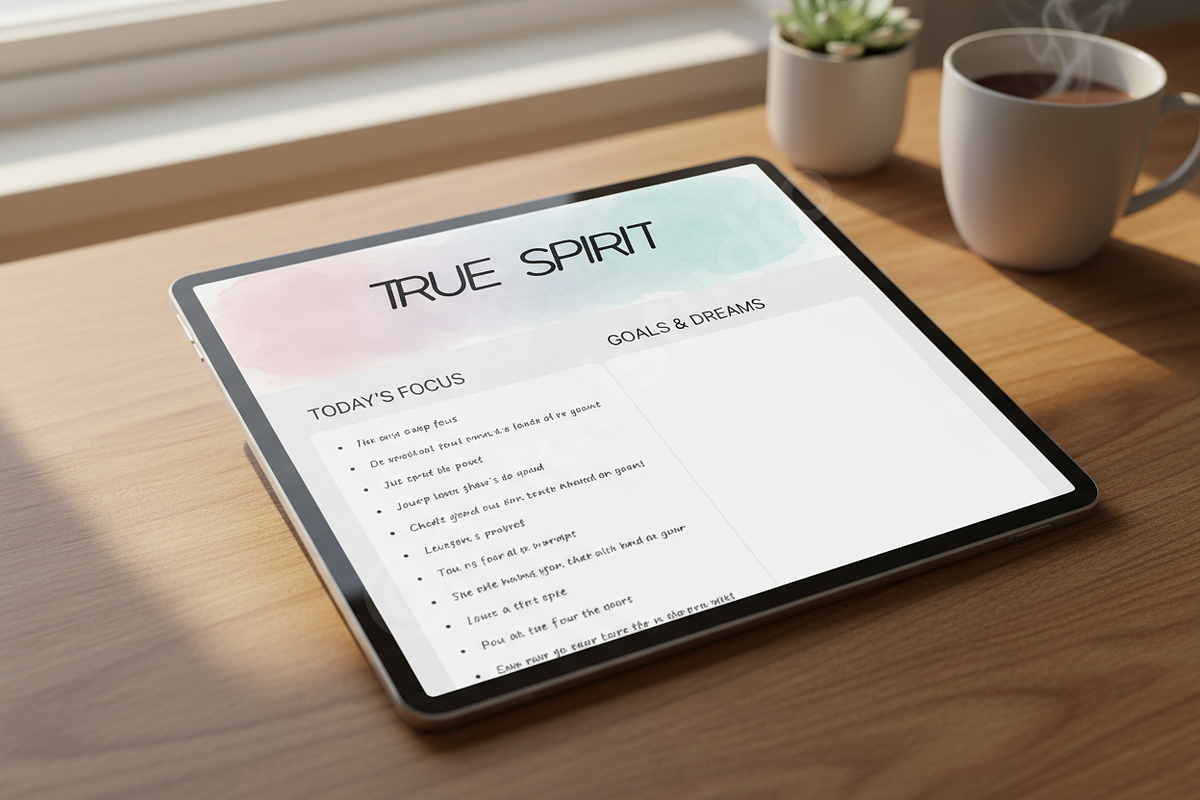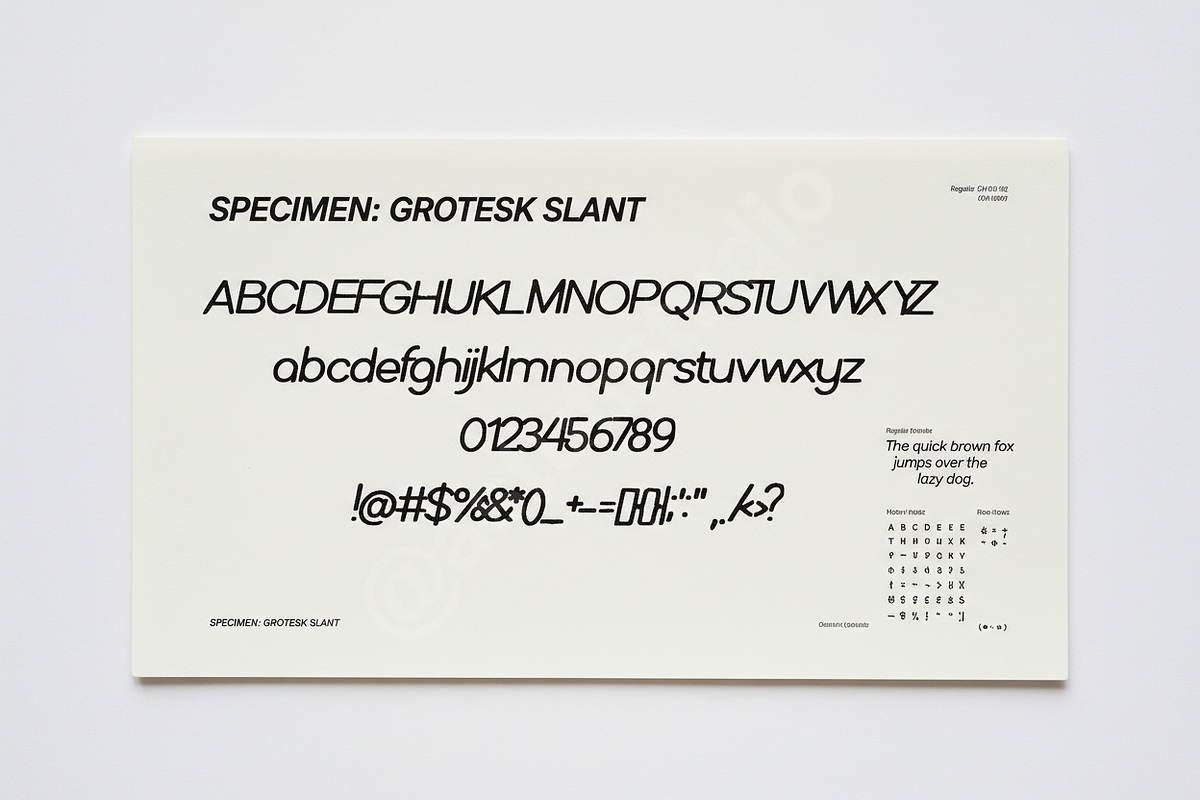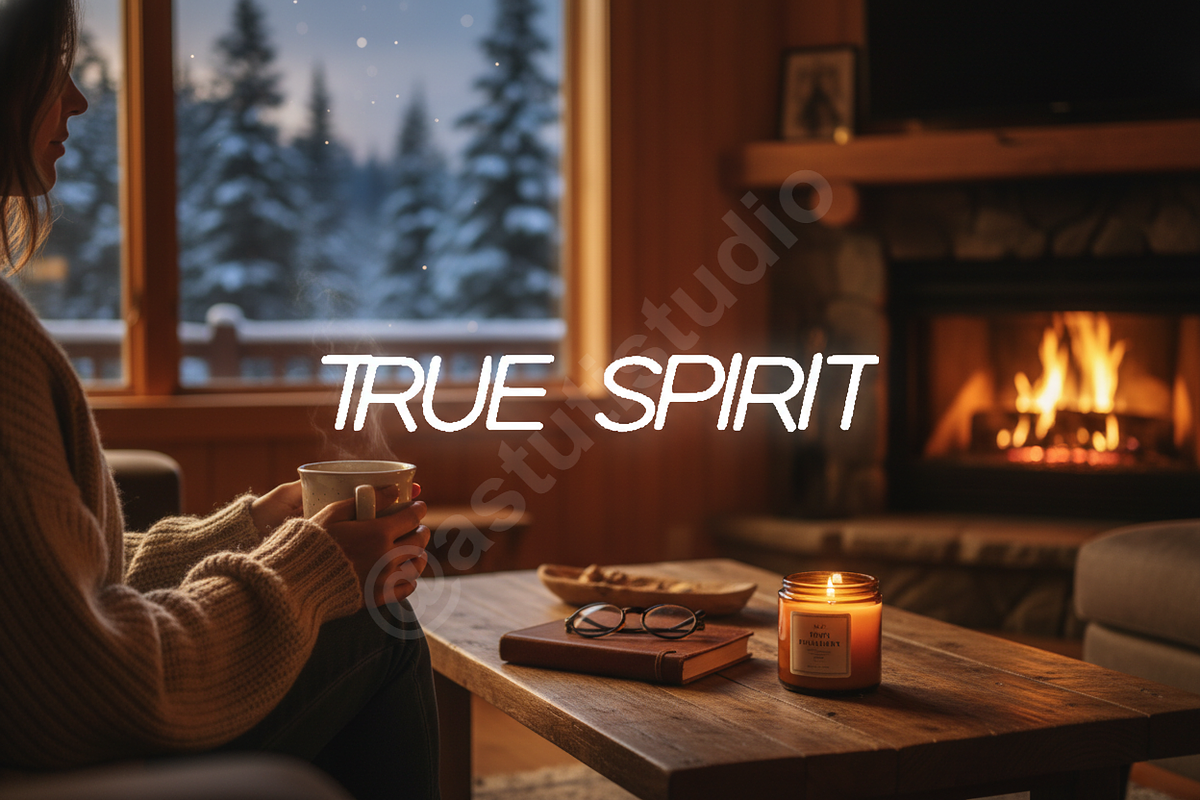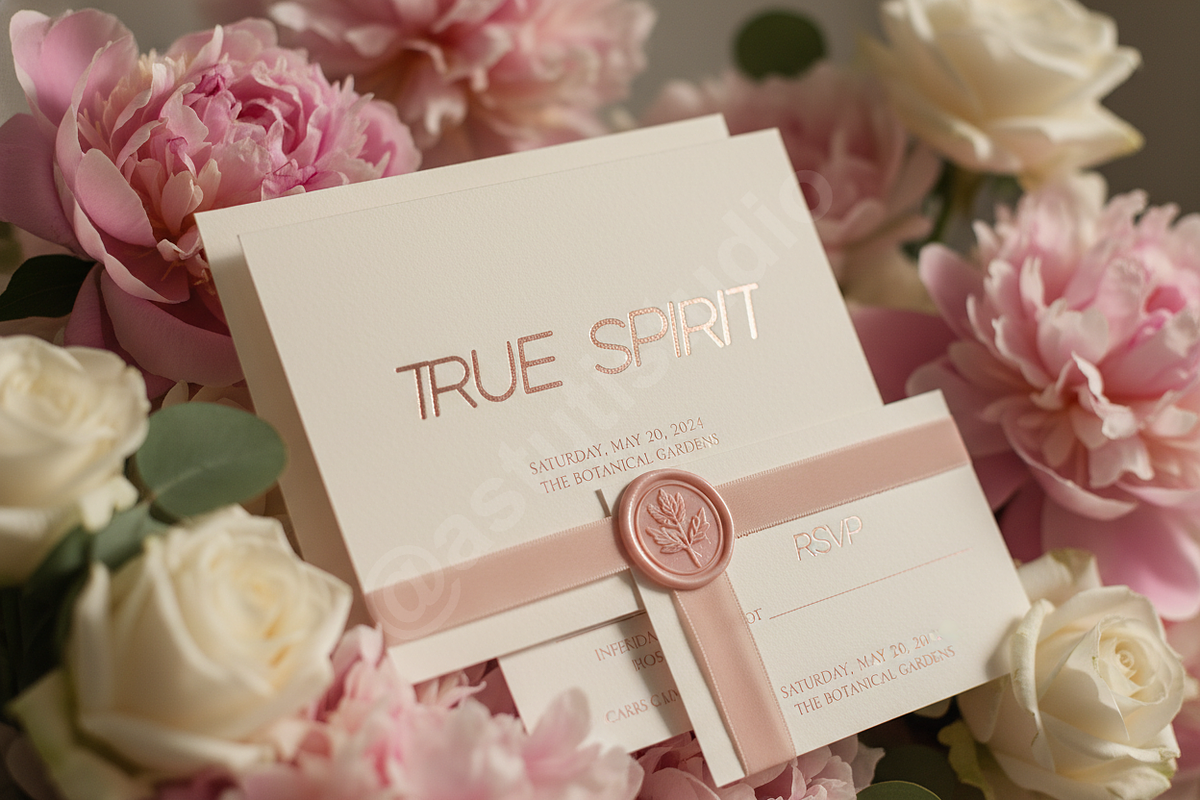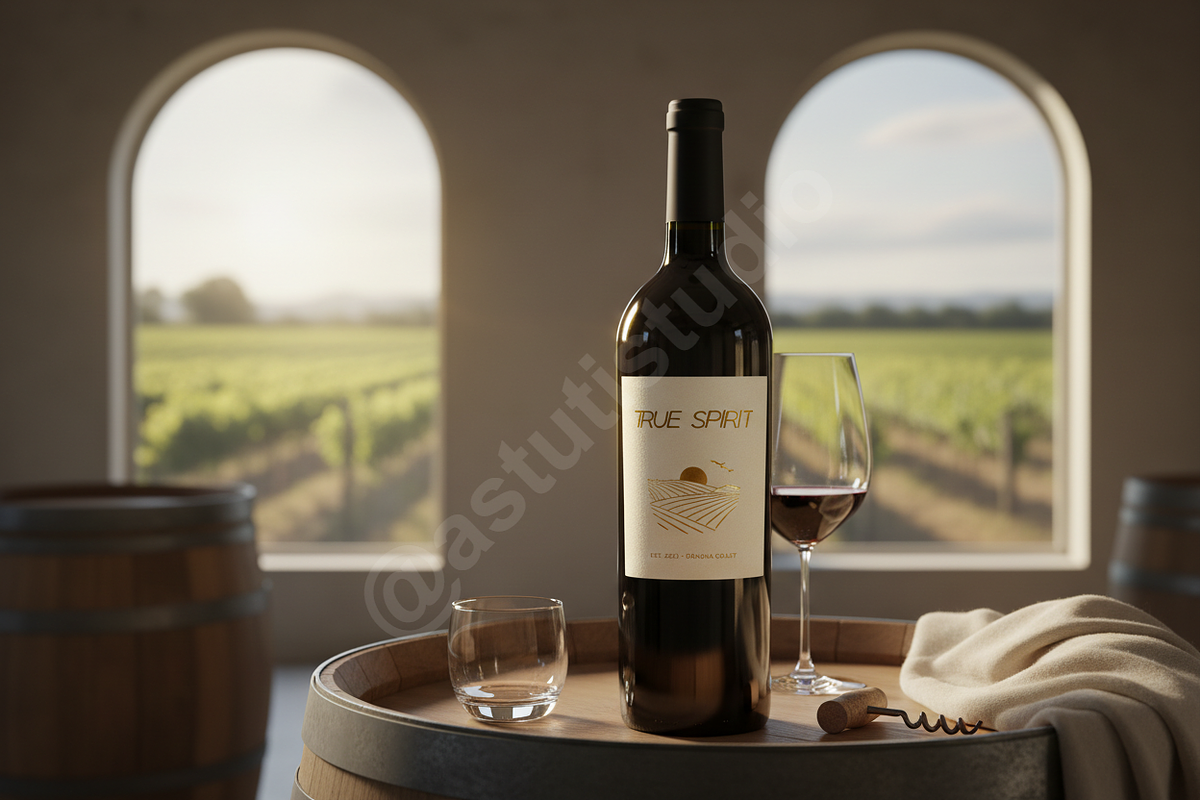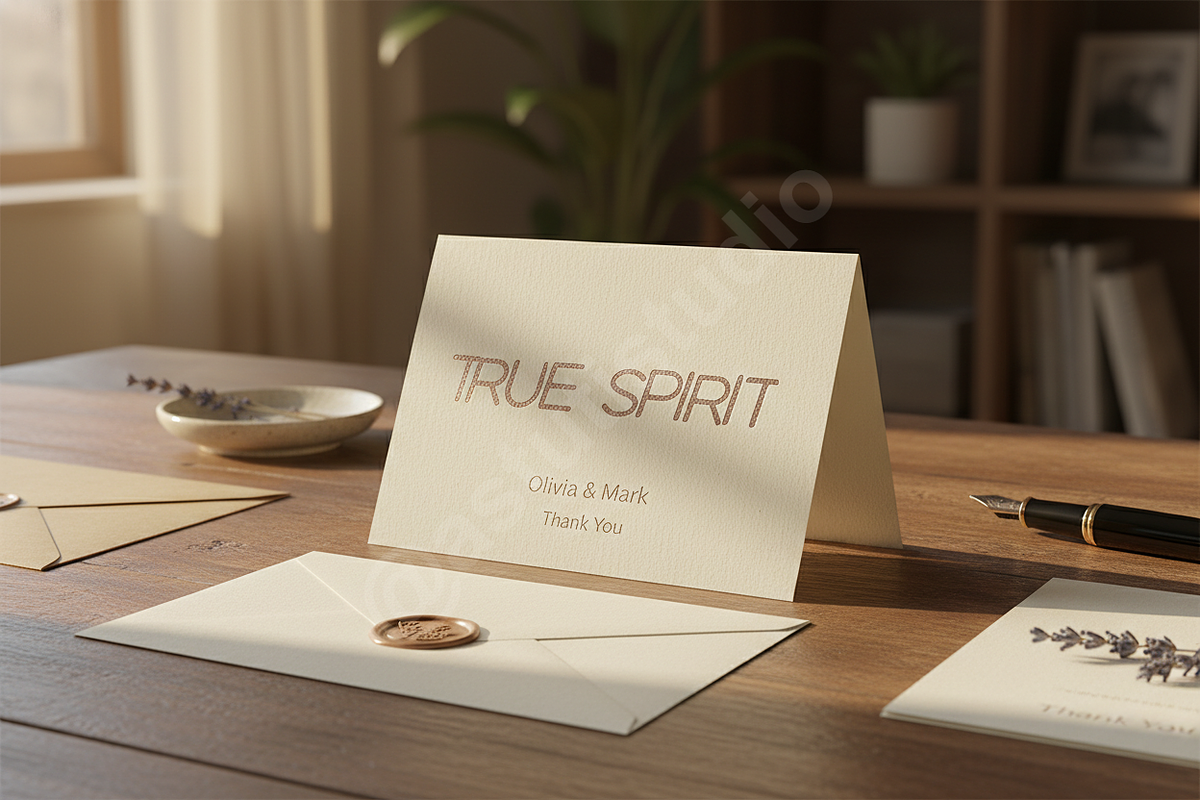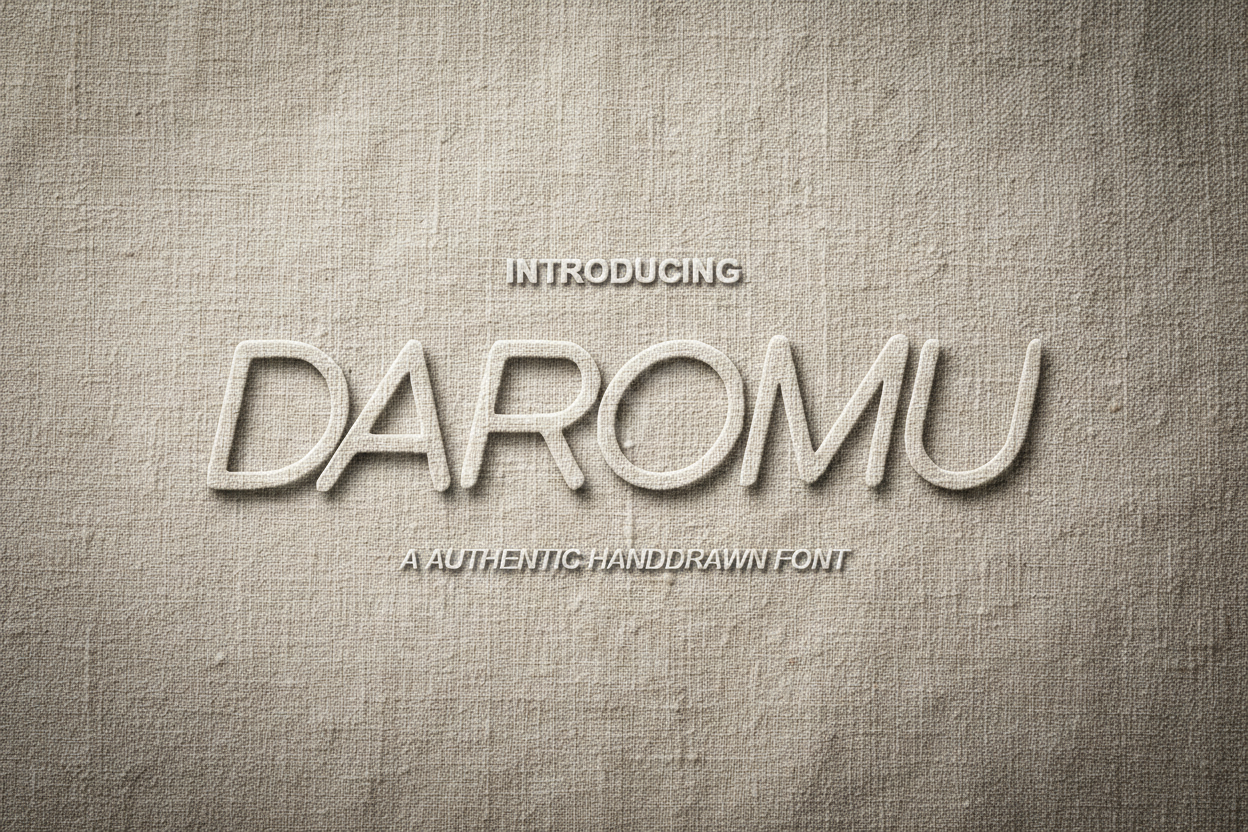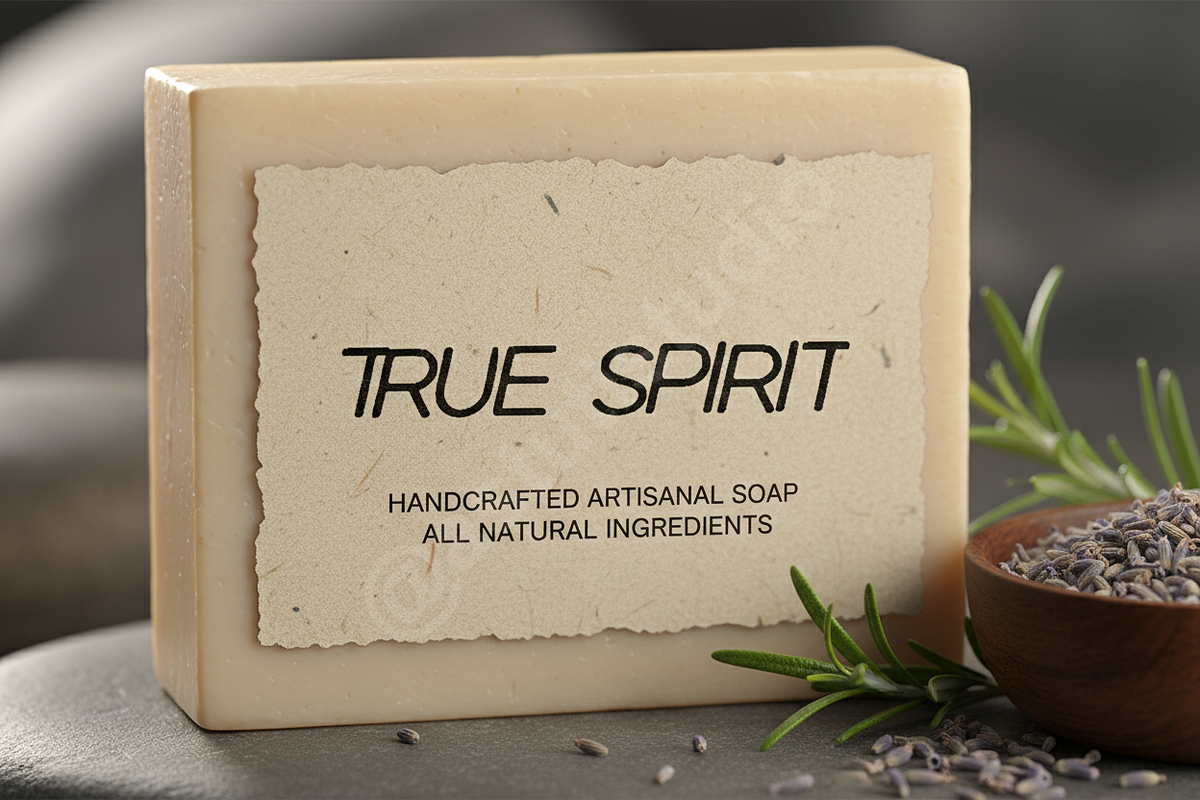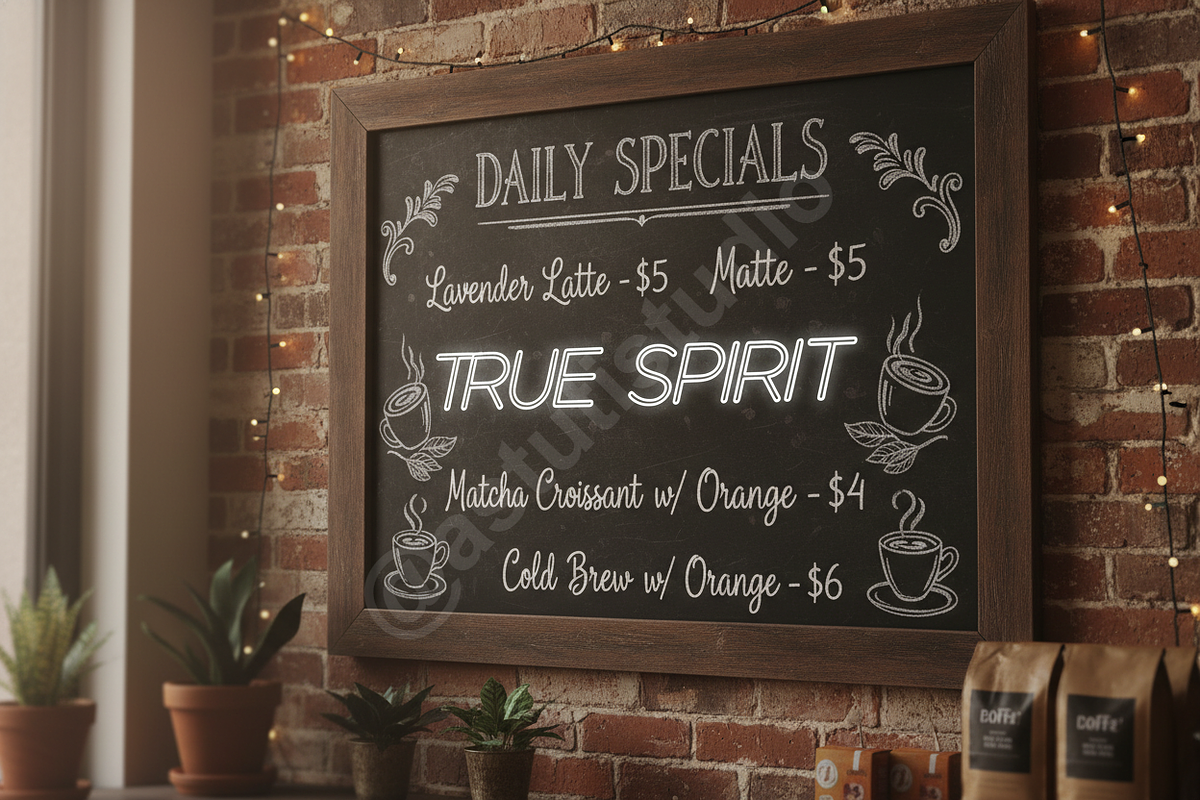
Daromu Typeface - The Elegant Luxury
Introducing Daromu, a sophisticated high-contrast serif typeface designed to elevate your brand's presence. Daromu embodies timeless elegance and modern refinement, making it the definitive choice for projects that demand a premium aesthetic. Its sharp terminals and sweeping curves ensure maximum impact, whether displayed across a luxury masthead, an editorial spread, or high-conversion social media graphics.
• High Contrast Design: Striking balance between thick and thin strokes for an authoritative look. • Extensive Ligatures & Alternates: Over 30 unique OpenType features for custom typographic styling. • Multilingual Support: Full support for Western and Central European languages. • Optimized for Print & Digital: Clean rendering at small sizes and stunning detail in large display settings. • Stylistic Sets: Multiple character variants available via OpenType features.